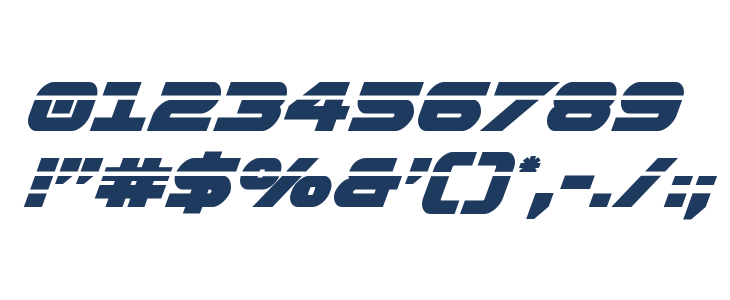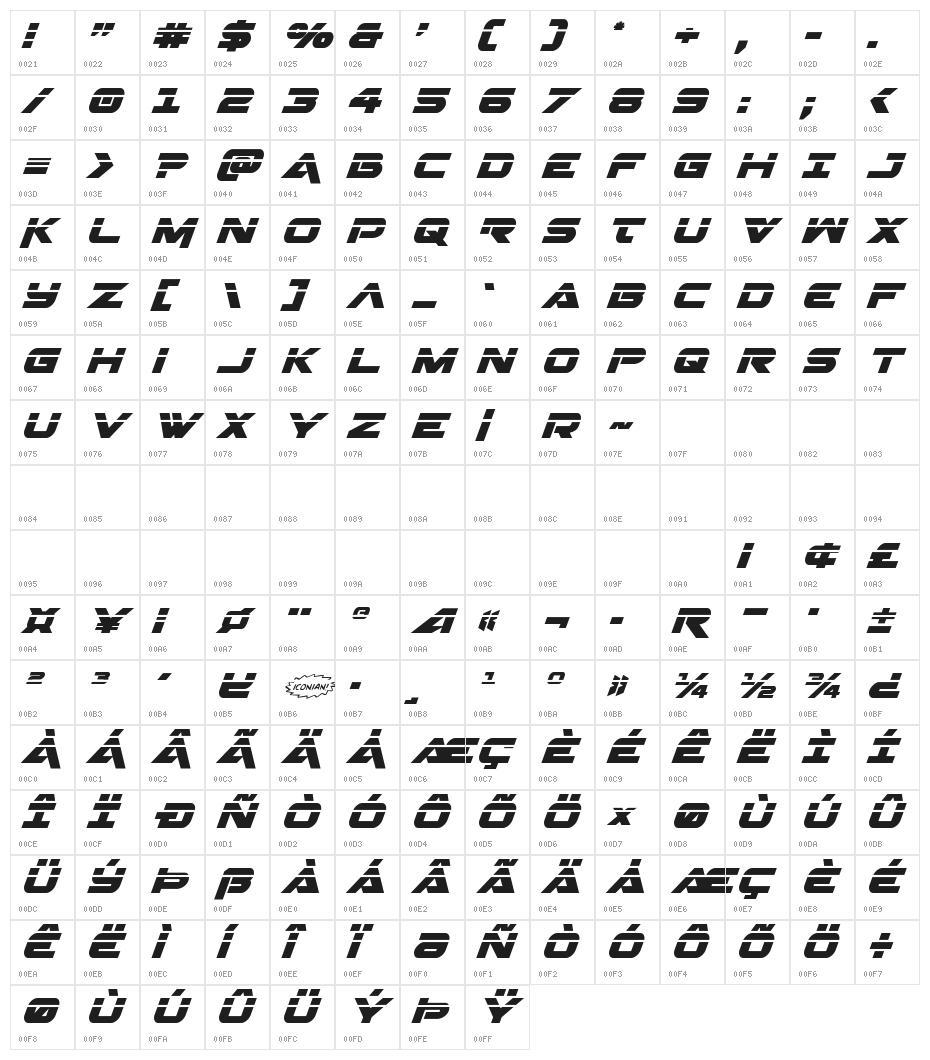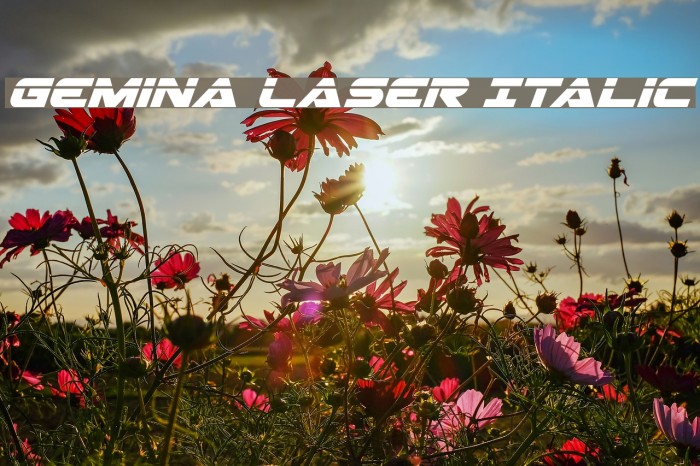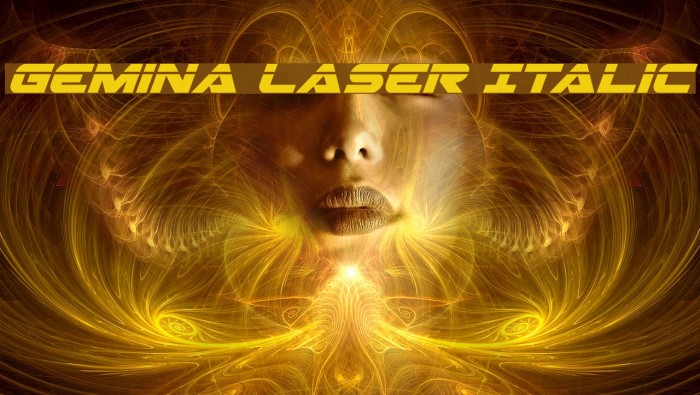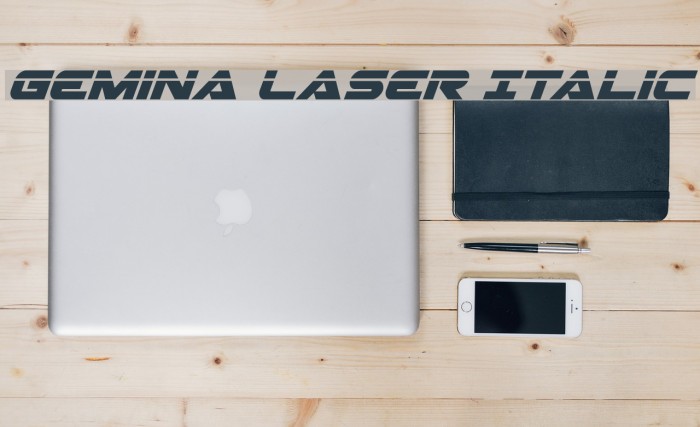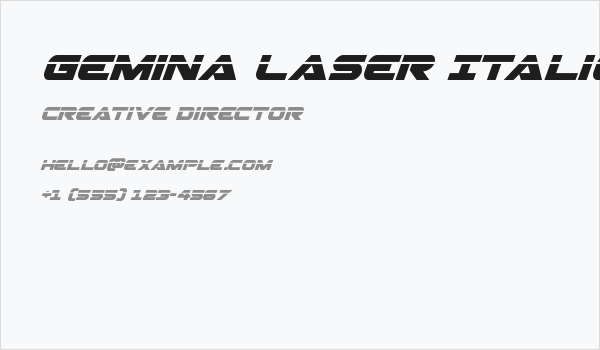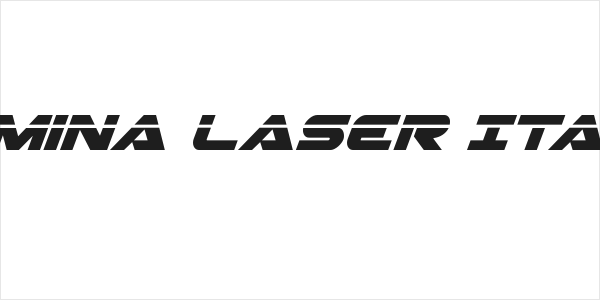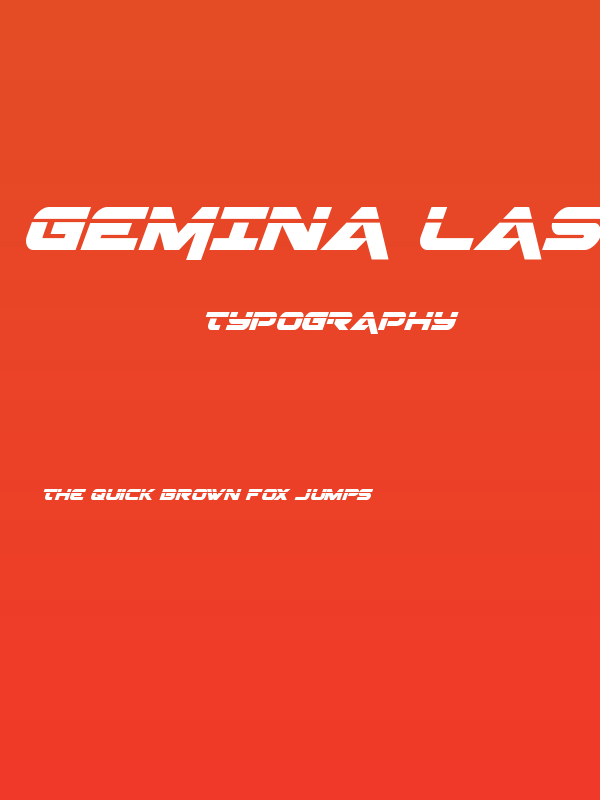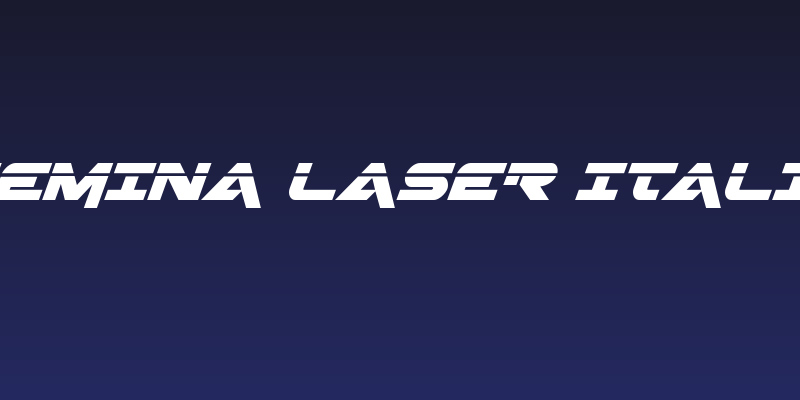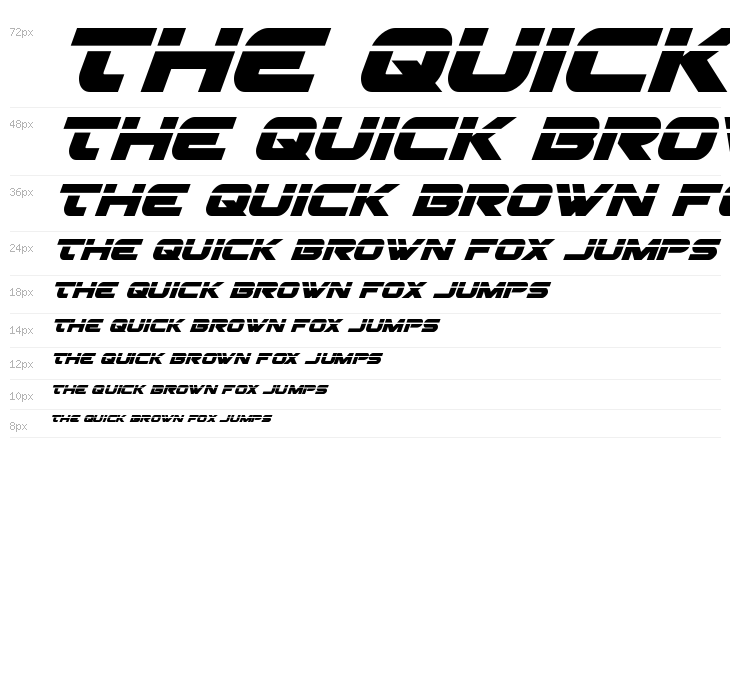
Gemina Laser Italic Font
Gemina Laser Italic Description
This font features a futuristic and dynamic design, characterized by sharp angles and a forward-leaning italic style. The geometric shapes and clean lines give it a sleek, modern appearance, reminiscent of sci-fi themes and high-tech aesthetics. The uppercase and lowercase letters maintain a consistent style, with a bold presence that commands attention. The numerals and special characters are equally bold and angular, ensuring a cohesive look across all glyphs. This font is ideal for projects that require a cutting-edge, tech-savvy vibe.
| Proposed Projects | Ideal for sci-fi movie posters, tech company logos, video game titles, and futuristic-themed designs. |